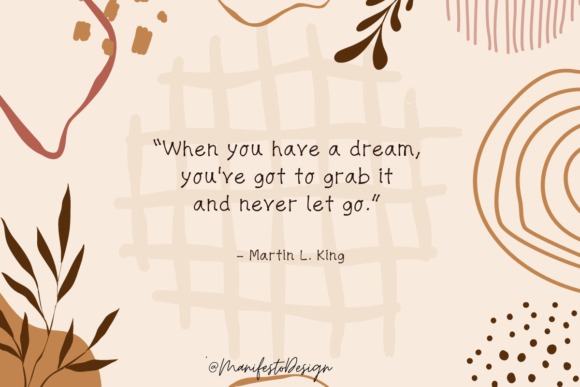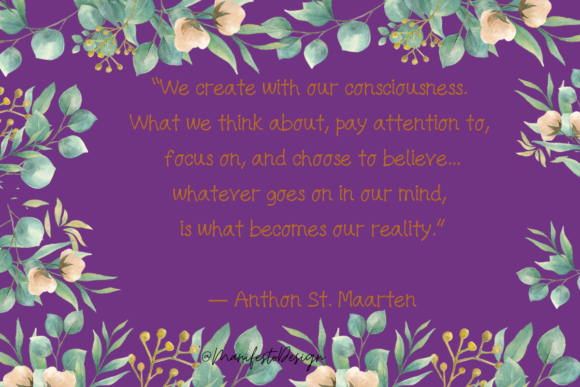
Magic Woman Font
db-ku.com - Script & Handwritten -- Magic Woman is a charming hand-drawn font that can be used in all kinds of designs. You will love how authentic your designs feel when you use this font!